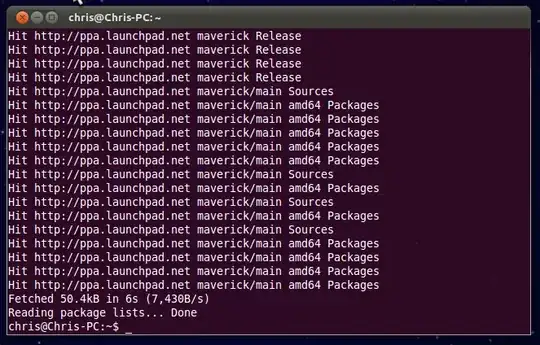
After my fresh install of Ubuntu 10.10, I noticed that the terminal's font is smashed together and altogether awful-looking.
Does anyone have a solution or workaround? I've been trying to find one for a few days. :(
It looks like you have the new Ubuntu font set as your terminal font. This is not recommended, because the monospace version of the Ubuntu font has not yet been created.
You can also do this graphically, in System->Preferences->Appearance->Fonts. Here change the "Fixed width font" to 'Monospace' size 10. It will look something like this:
Use a different font. The new Ubuntu font is not a monospace font, so it looks screwed up in the terminal (which expects monospace). I think Inconsolata is a great monospace font.